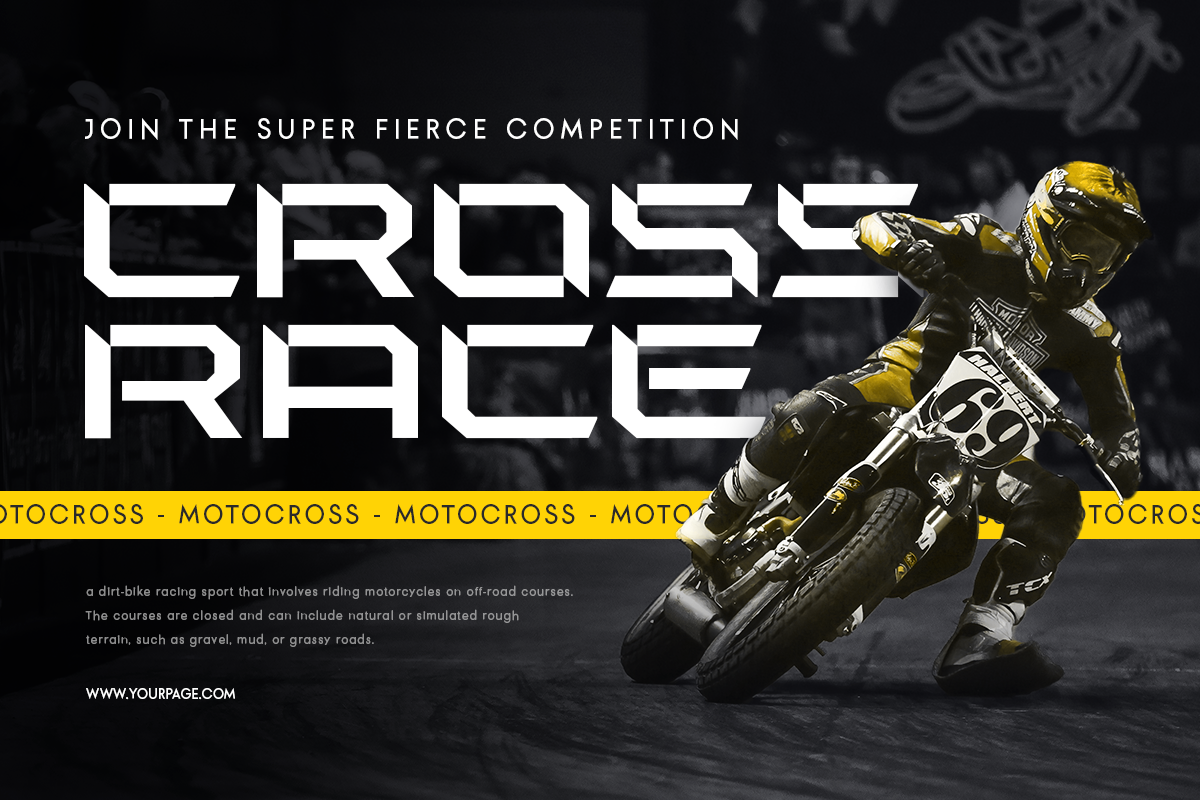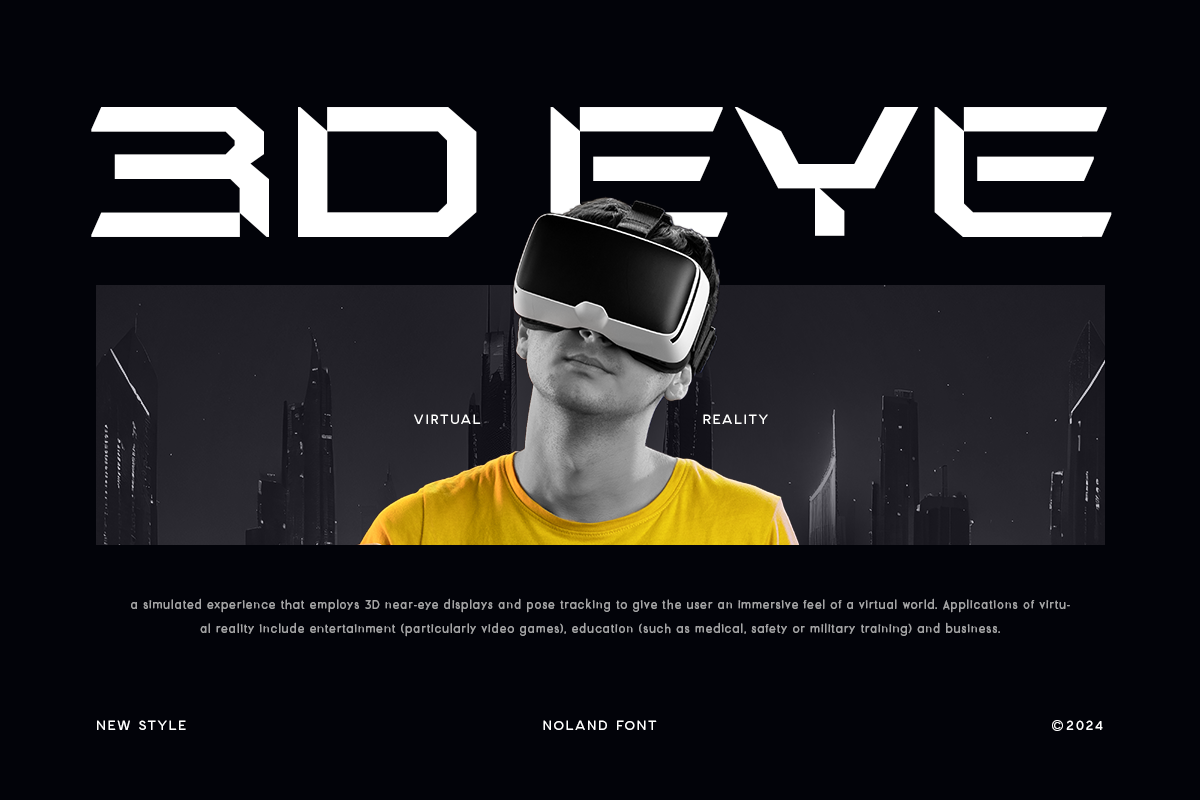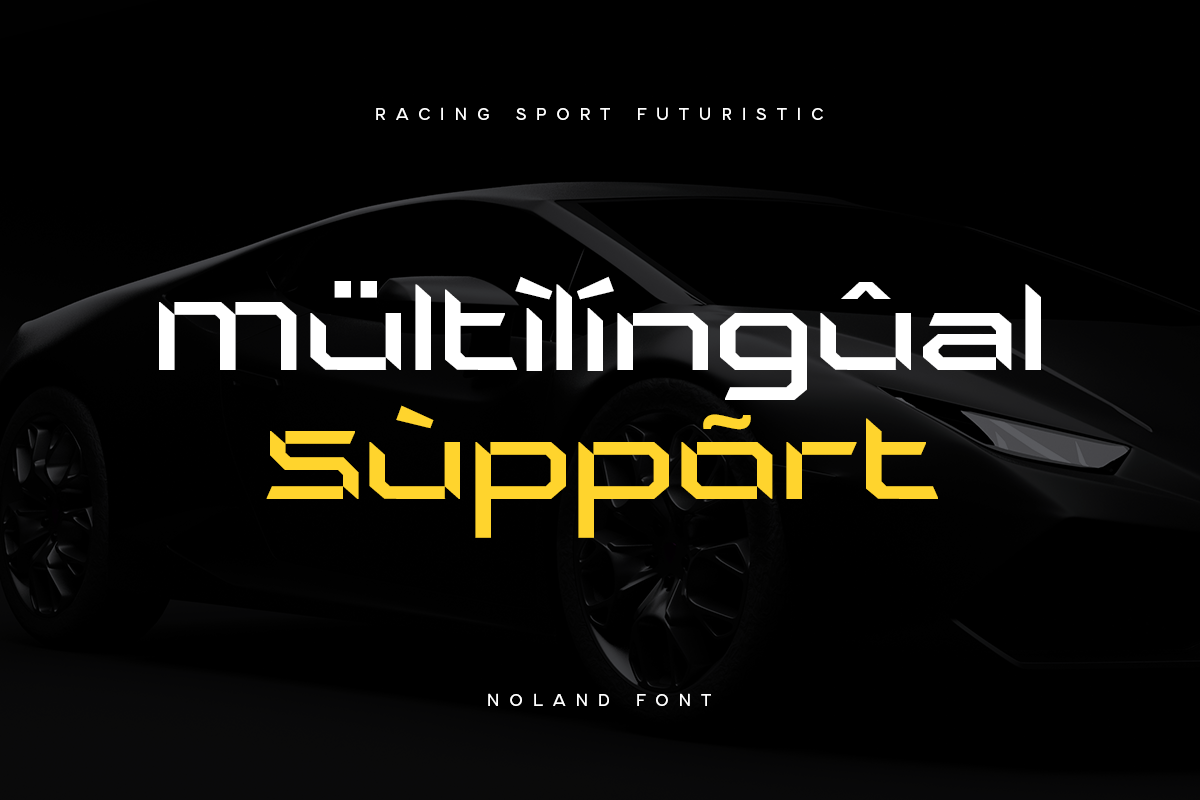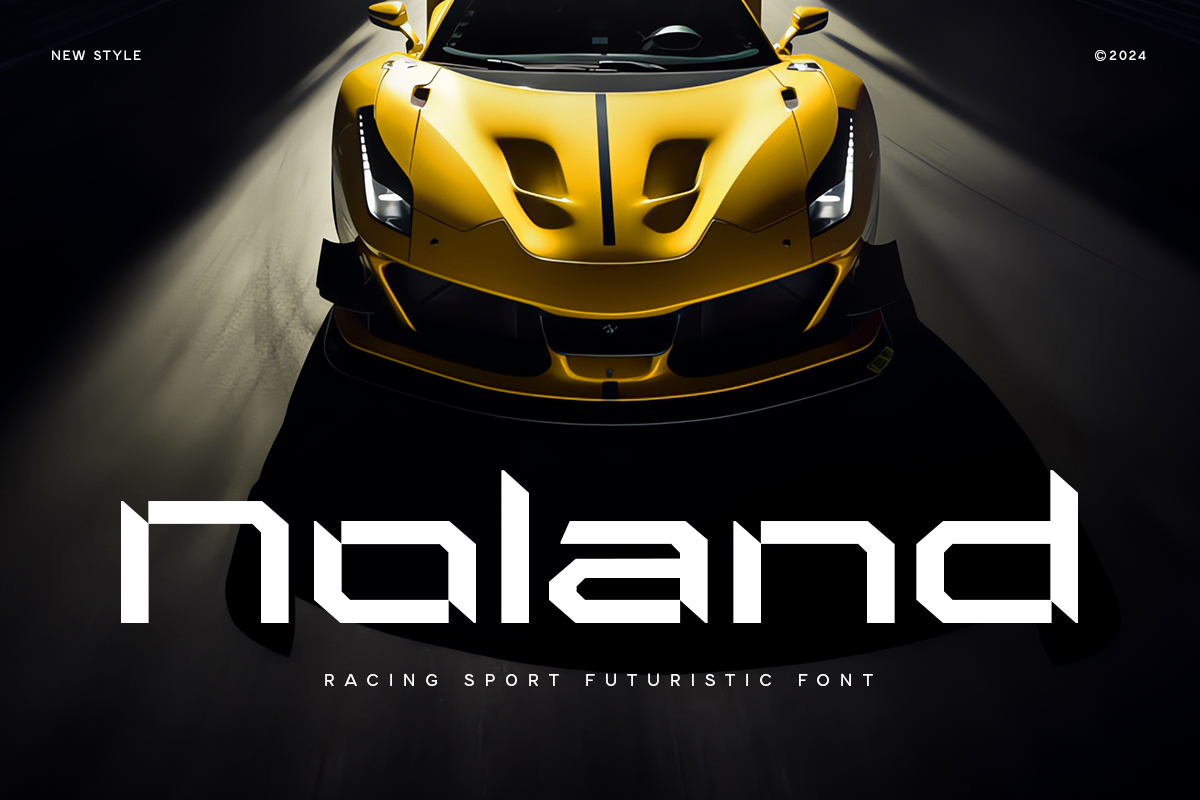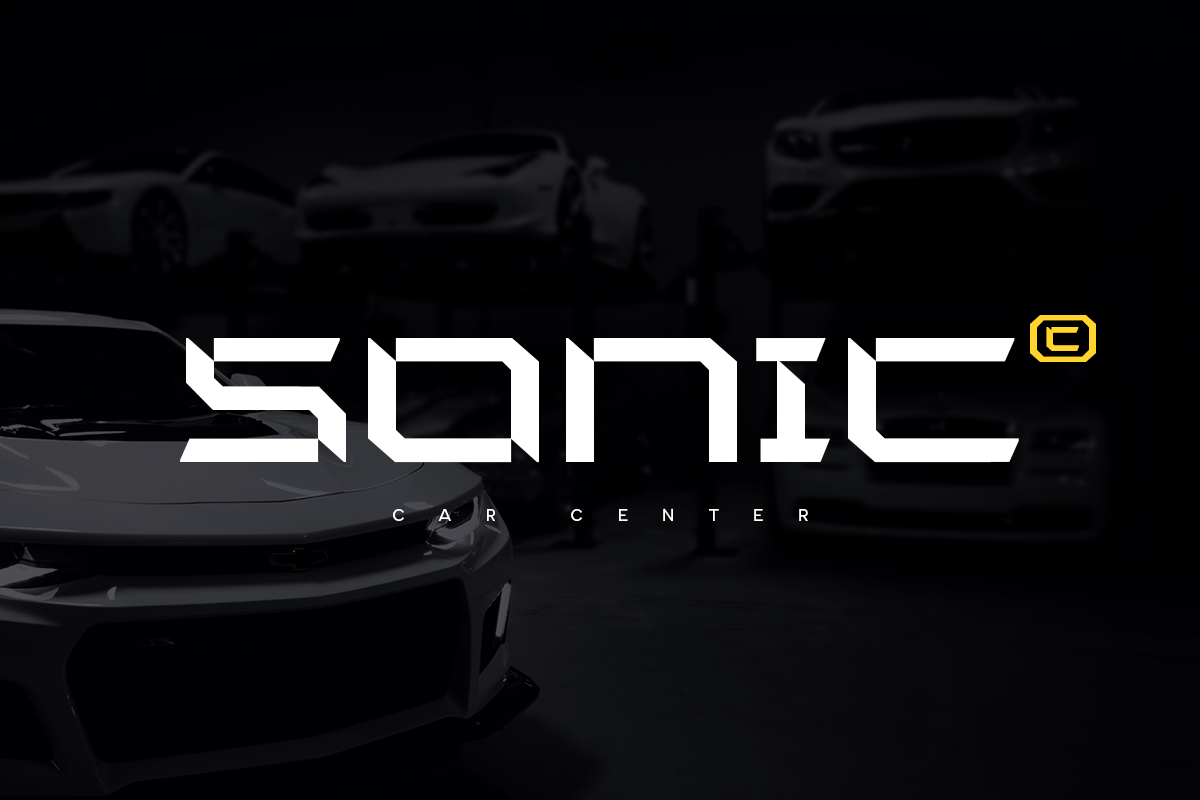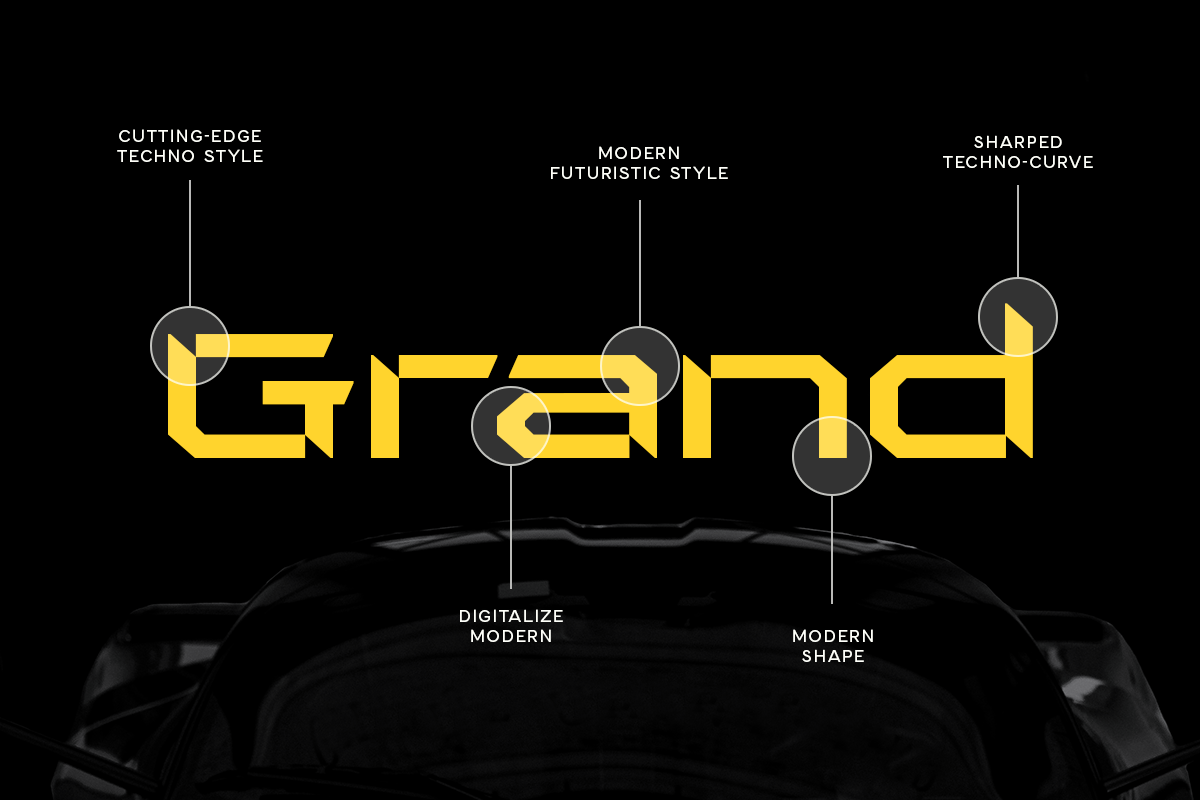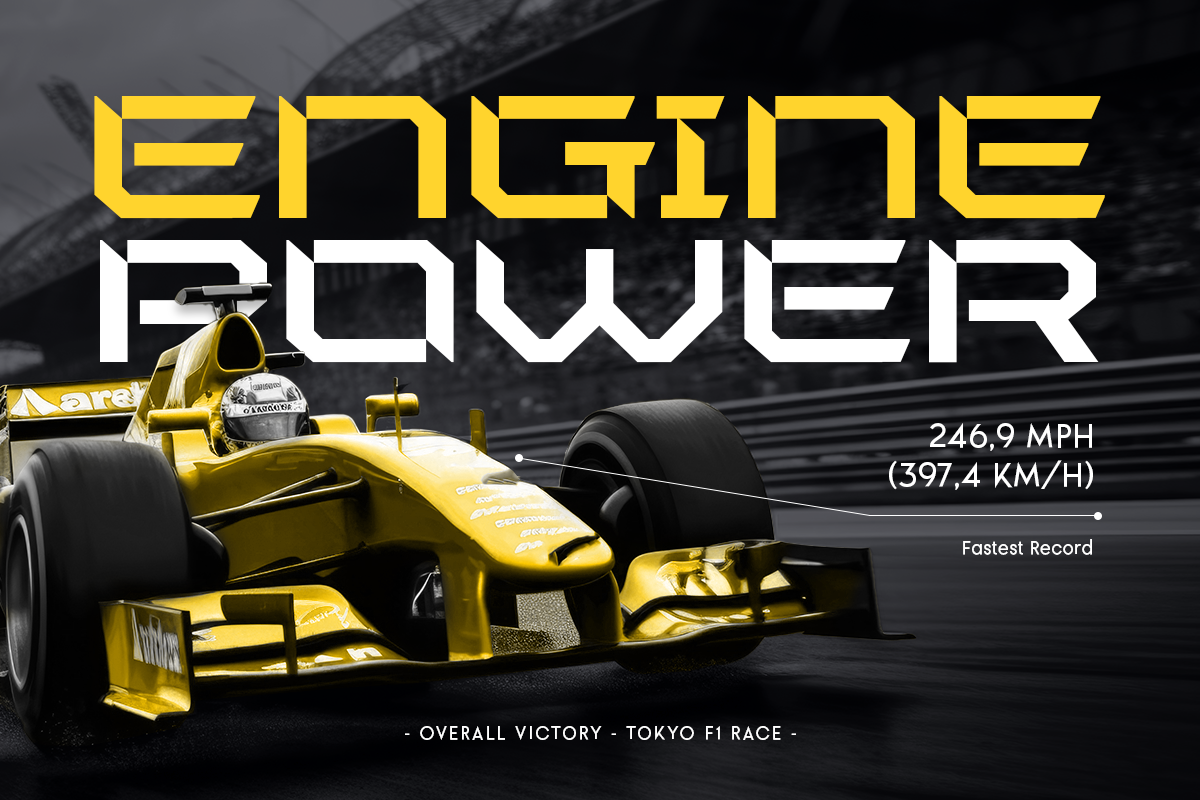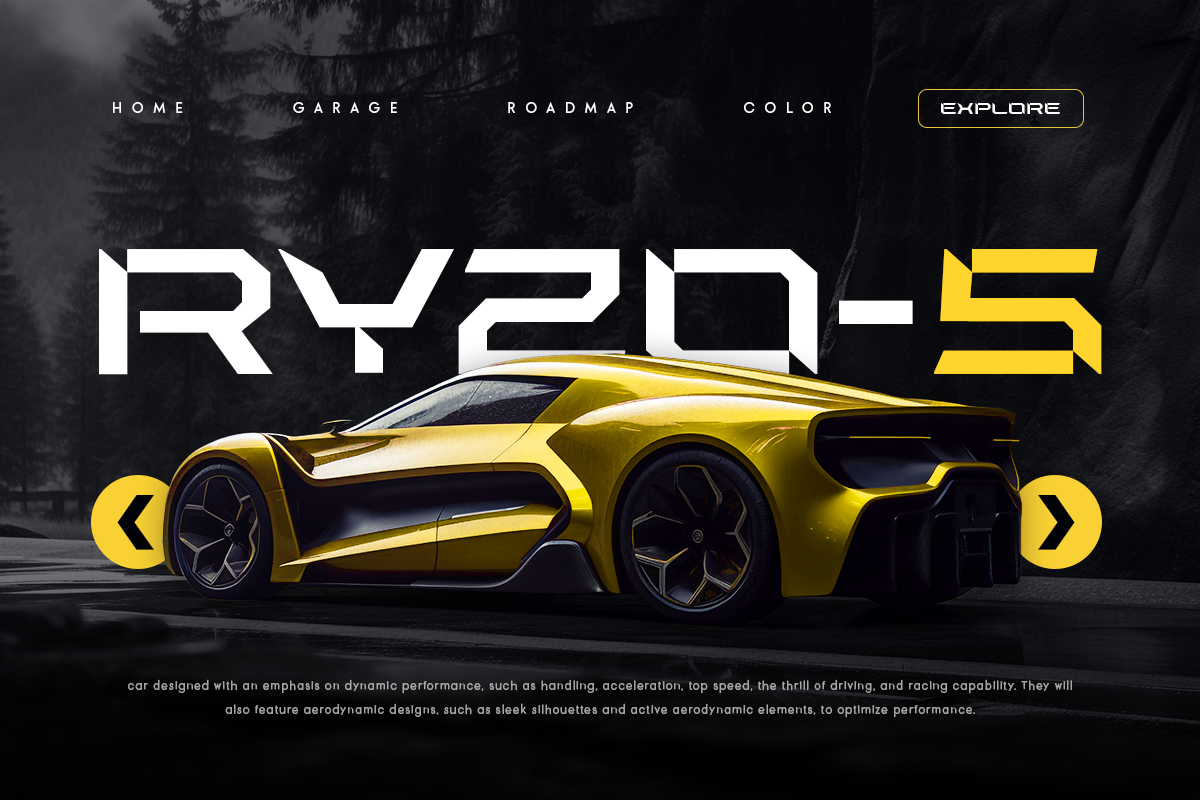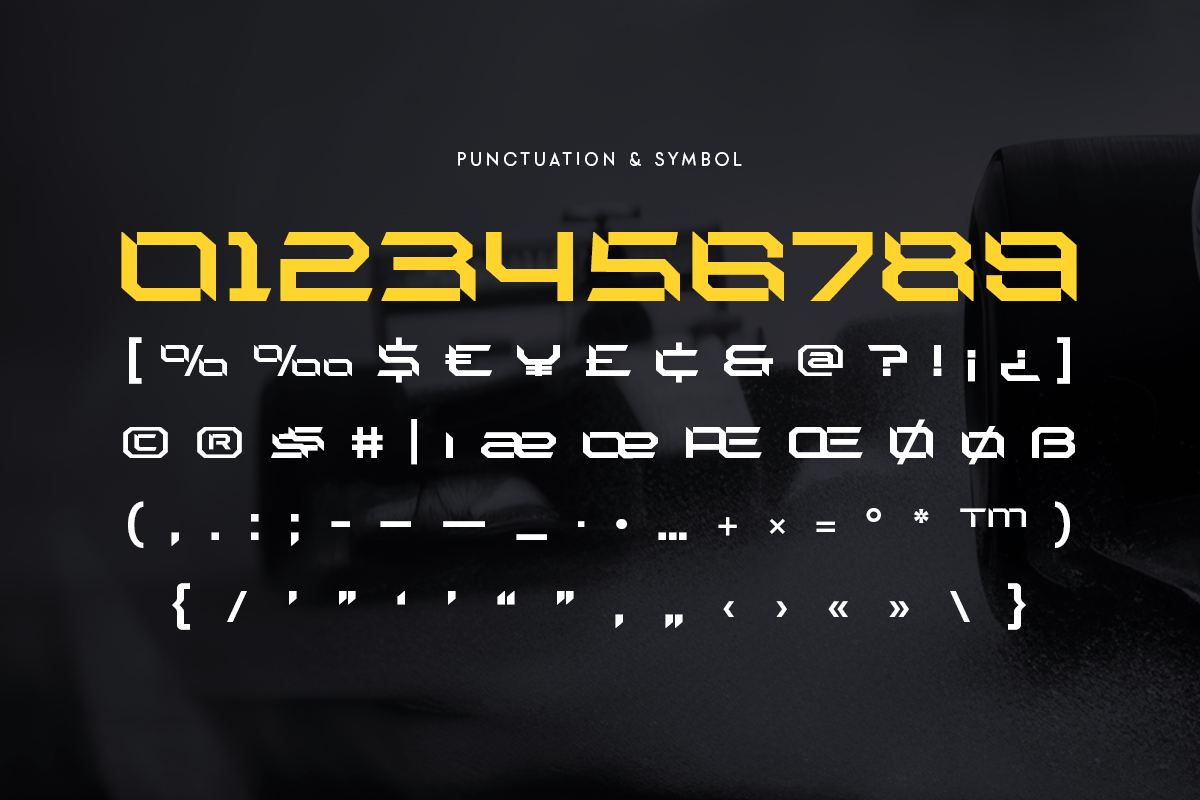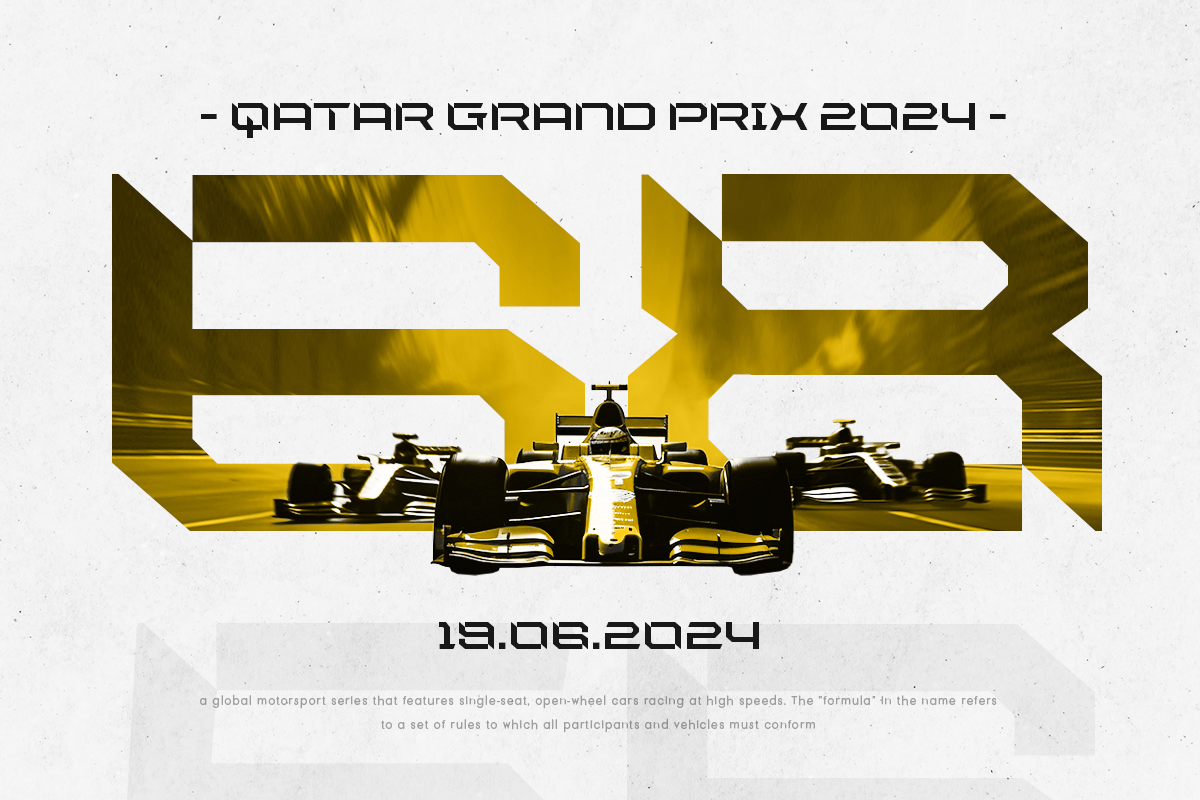
Noland - Sport Futuristic Font
Noland, a Sport Futuristic Font that created special for Branding, Title and more stand out typography for sport and action. It's so perfect to add your style and headline overview for sport, technology, actions, and fighting theme. And specially for this font, we crafted for bold action style and modern feels so enjoy to create any project that will show your main idea out.